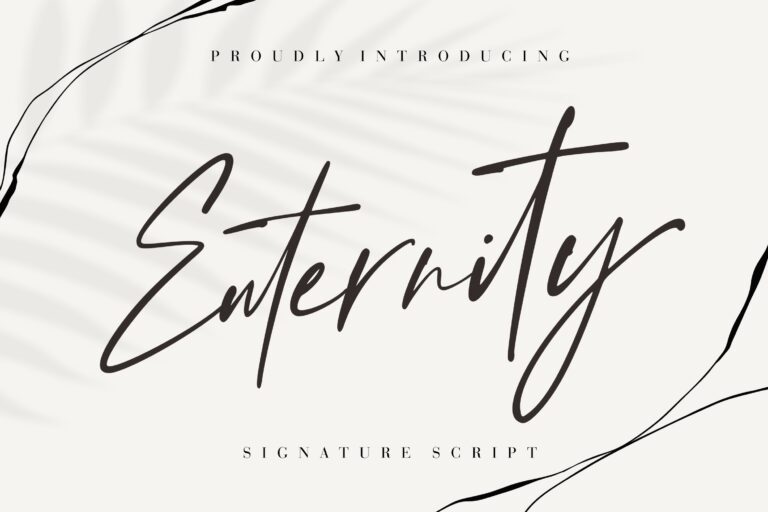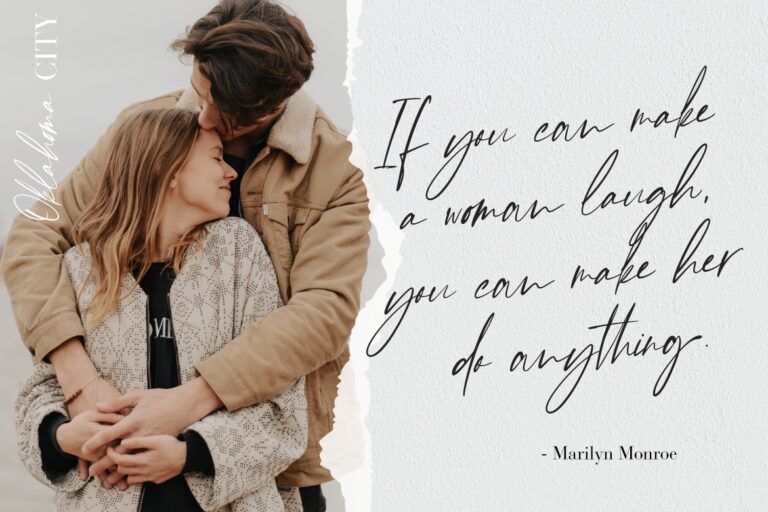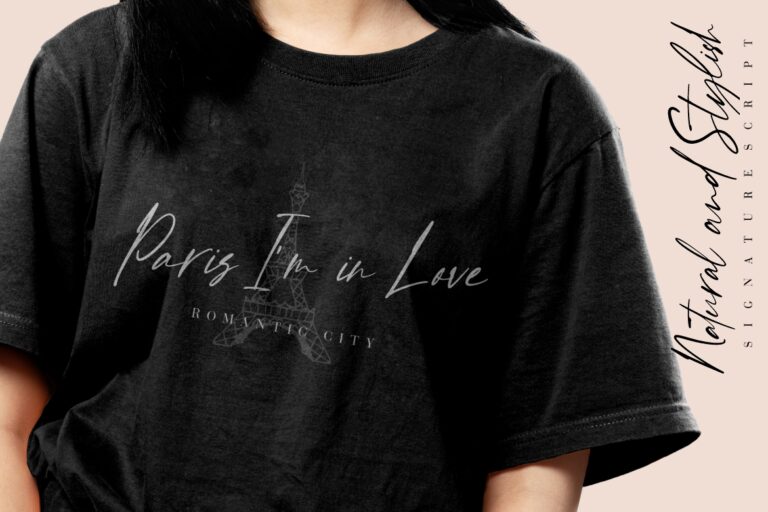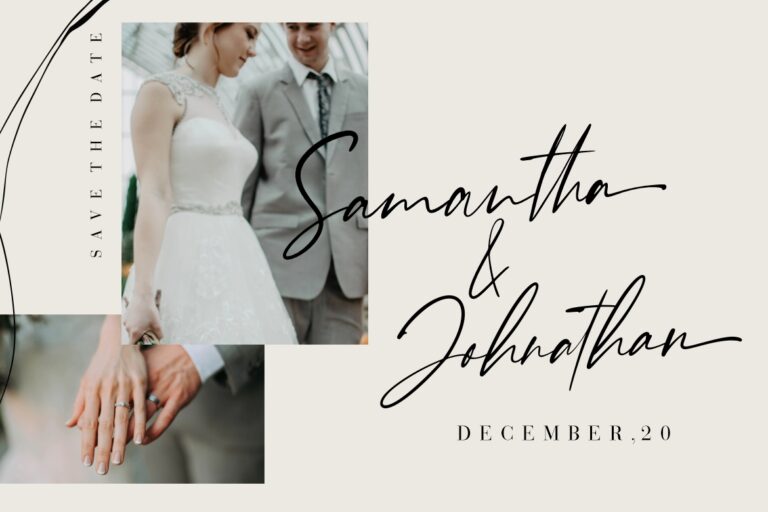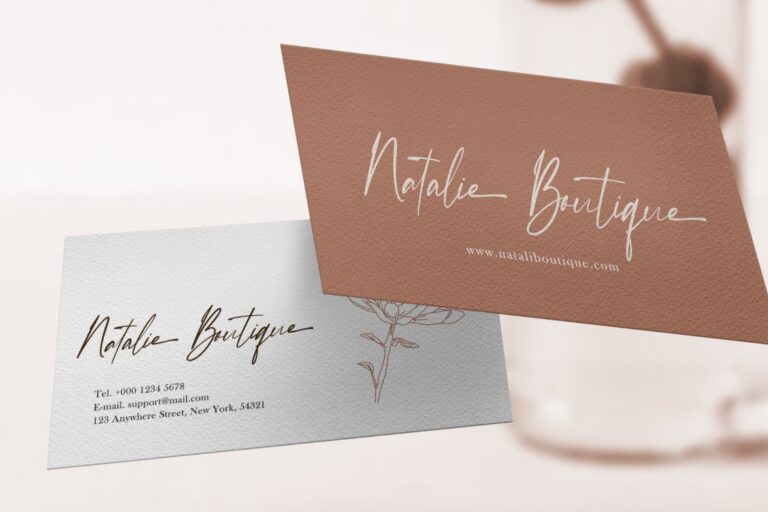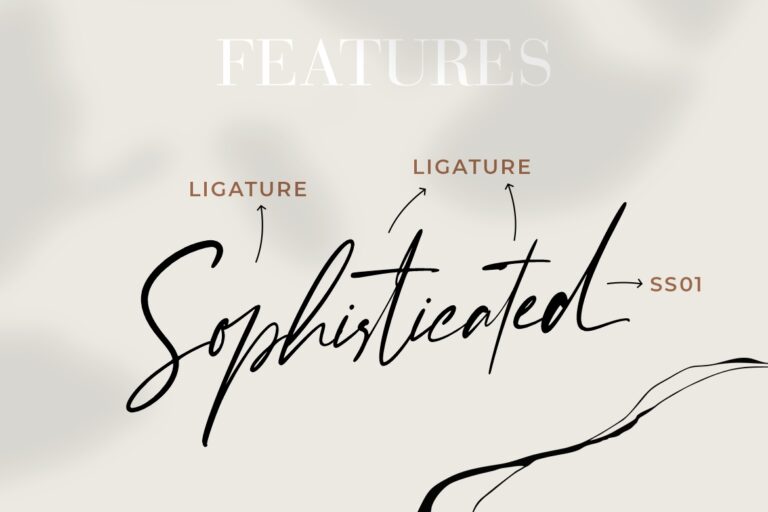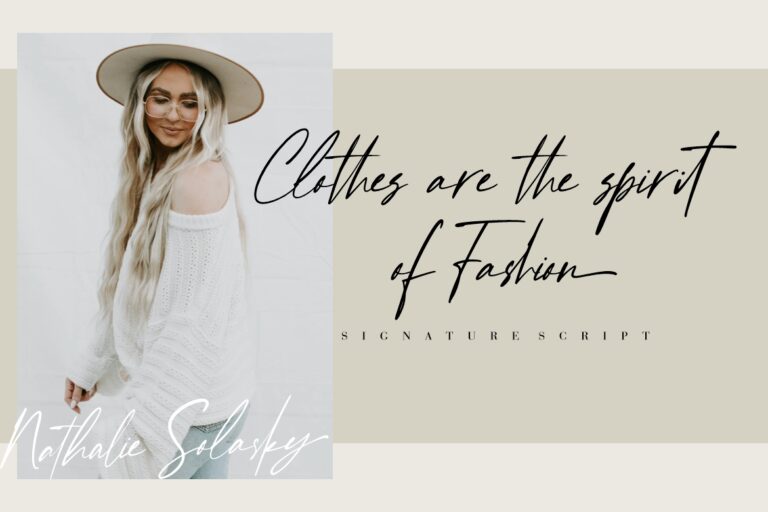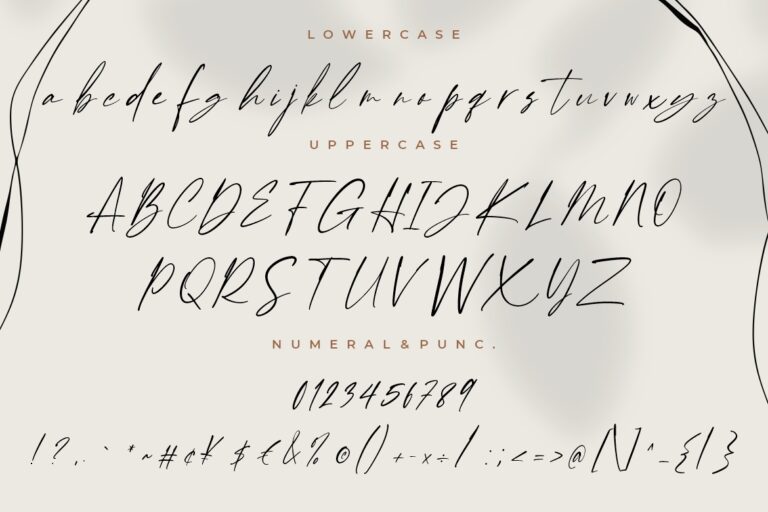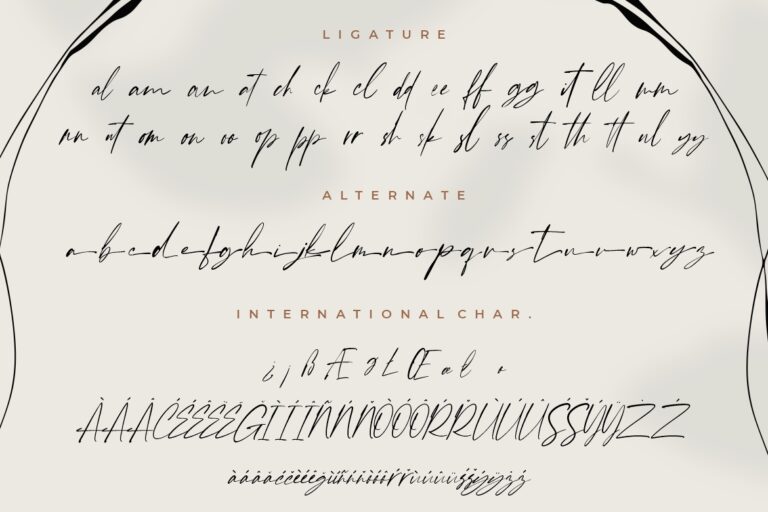
Enternity Signature Script
Enternity is a stylish signature font, this collection series will make your project looks awesome.
Enternity is perfect for branding projects, logo, wedding designs, social media posts, advertisements, product packaging, product designs, label, photography, watermark, invitation, stationery and any projects that need handwriting taste.